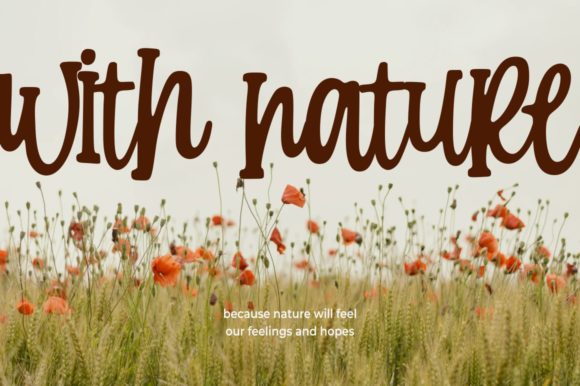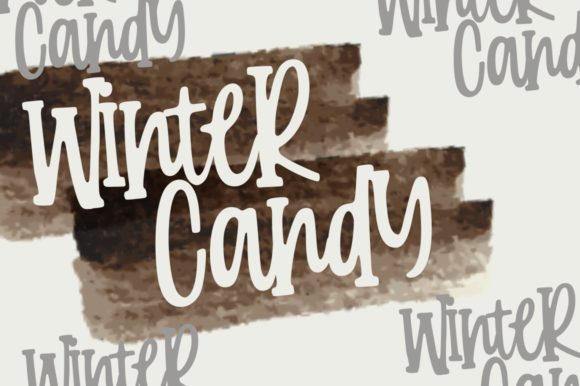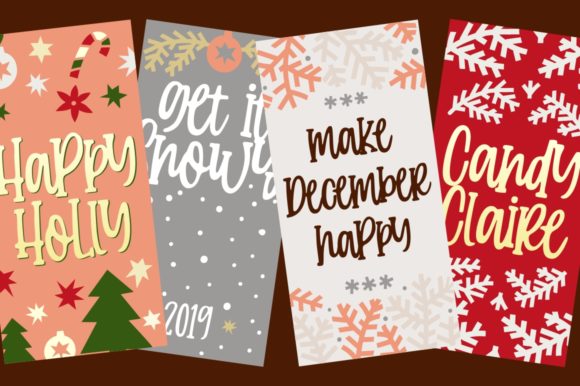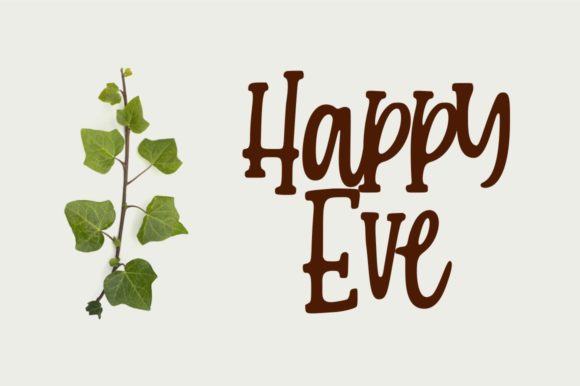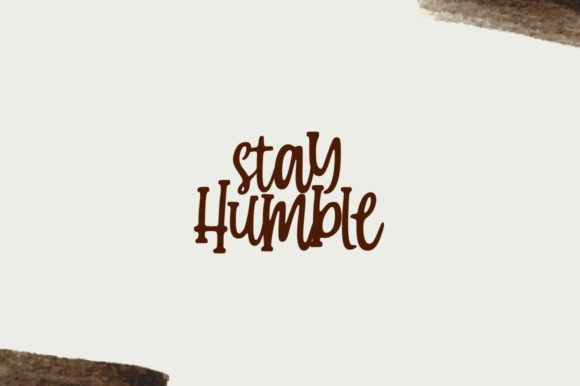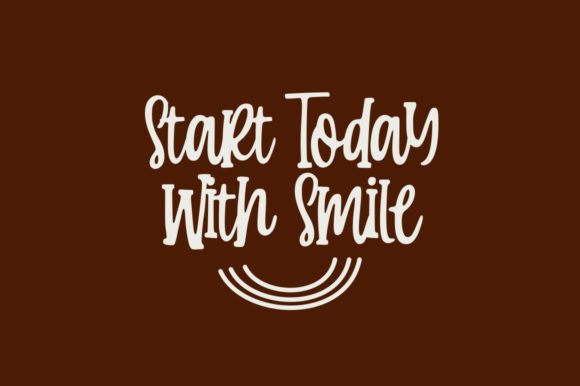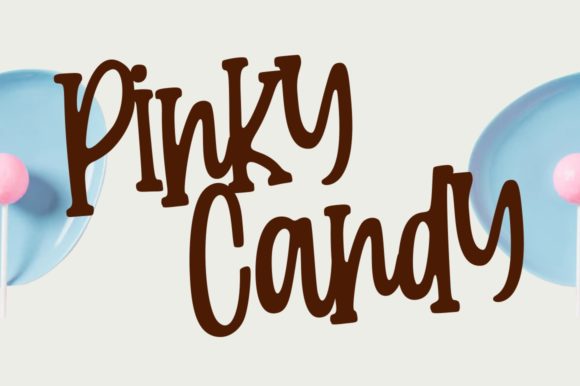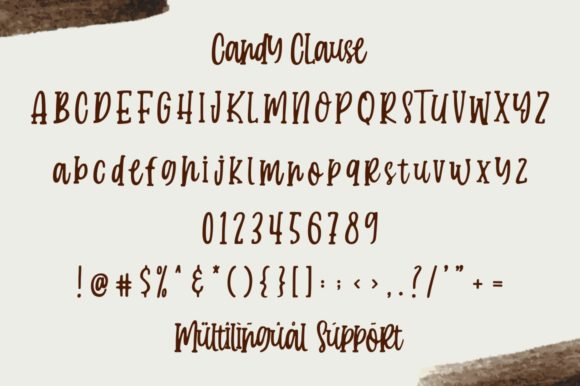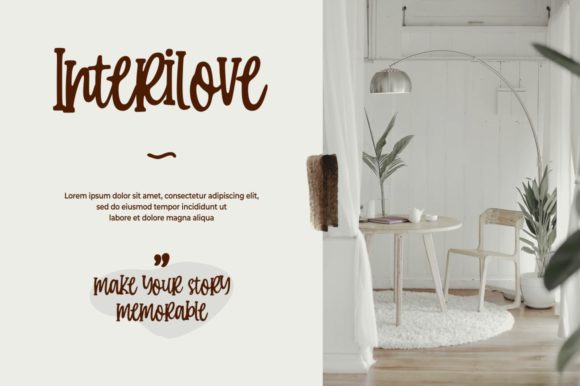
Candy Clause Font
About Candy Clause Font
Candy Clause is a stunning script font that delivers a smooth and charming font experience. Get inspired by its whimsical charm!